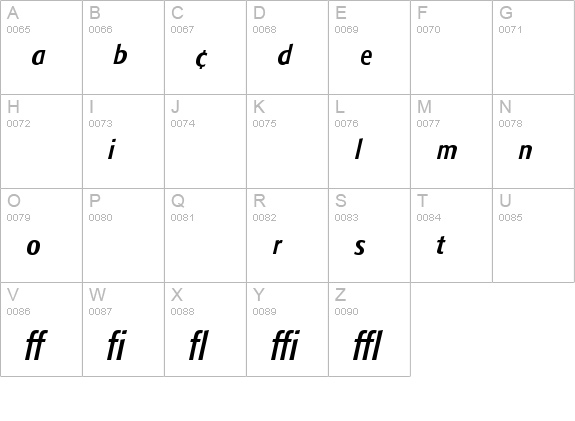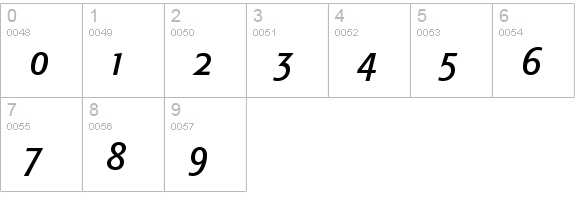
Formata Condensed Italic Expert Font Details
Formata Condensed Italic Expert is a distinctive, condensed-width, italic variant in the Formata typeface family \xE2\x80\x94 well suited to design and typography projects.
Formata Condensed Italic Expert font is a sleek and stylish typeface designed for modern and professional design projects. With its condensed structure and elegant italic styling, this font exudes sophistication and sophistication. Perfect for adding a touch of refinement to your typography, Formata Condensed Italic Expert font is ideal for use in editorials, branding, packaging, and more. The best part is that this font is available for free download at FontsMarket.com. Simply visit the website and download Formata Condensed Italic Expert font to elevate your design projects with its unique and eye-catching appeal. Don't miss out on this opportunity to enhance your work with a premium font at no cost.